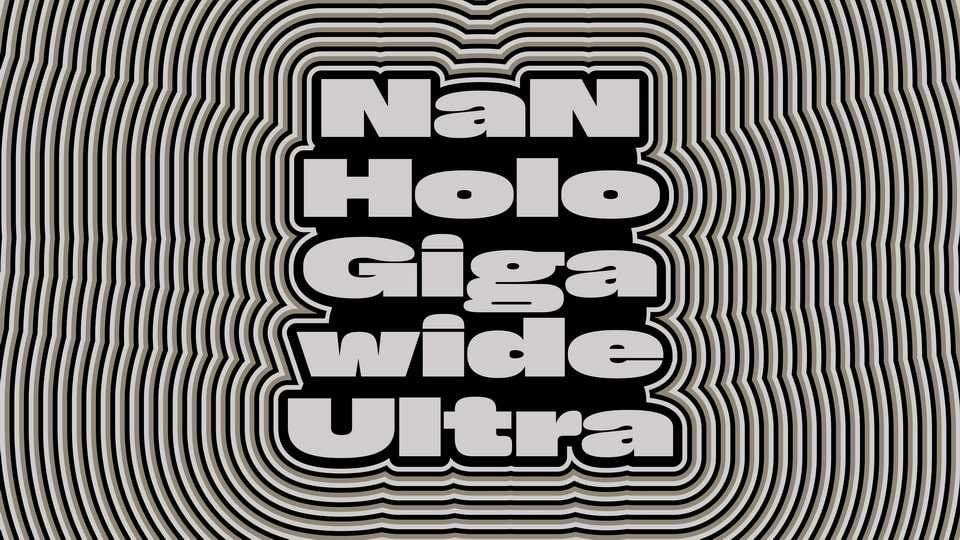
NaN Holo Gigawide Ultra Font › Fontesk – Download Grátis
Download NaN Holo font, a replicant-inspired fleshy neo-grotesk typeface in proportional and monospaced styles. The font is built on an industrial frame with biological forms disrupting an otherwise tensely machined flow